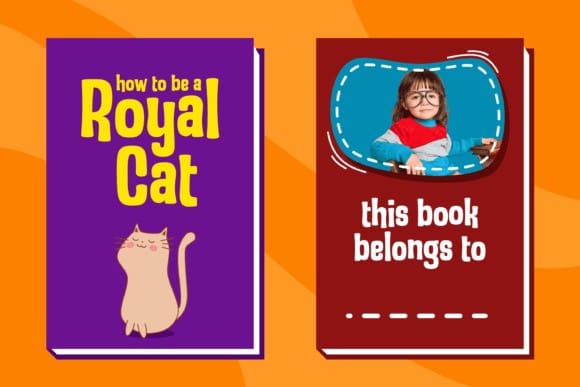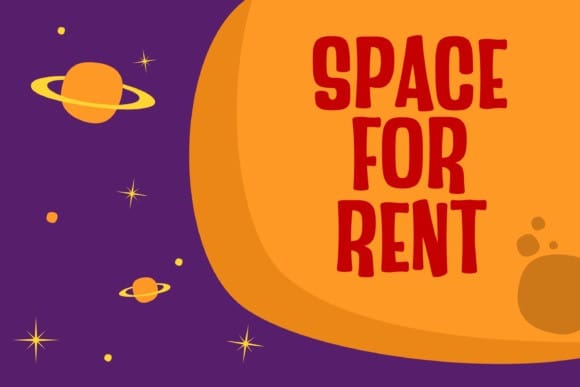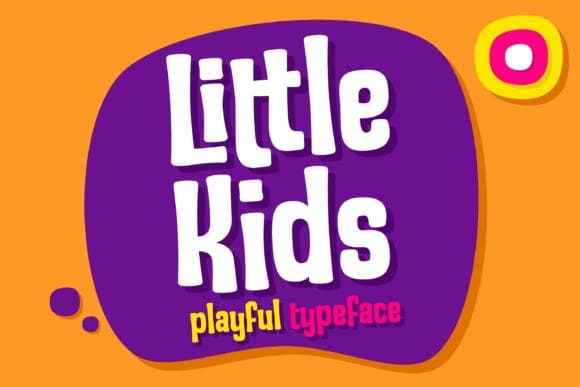
Little Kids Font
Little Kids Font is a font that will make your design looks cool, playful, unique, and fun. This font is specially crafted for children, kids, boys, girls, kindergarten, children book, invitation, poster, menu, comic, and other graphic design purposes.